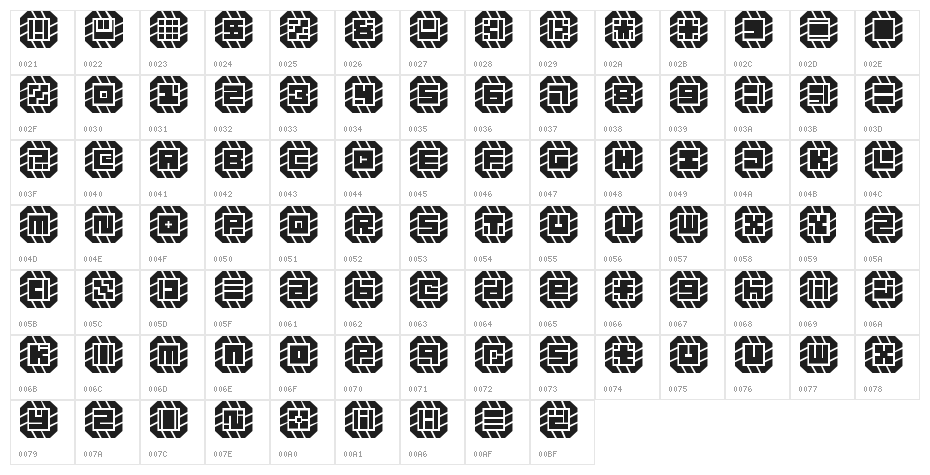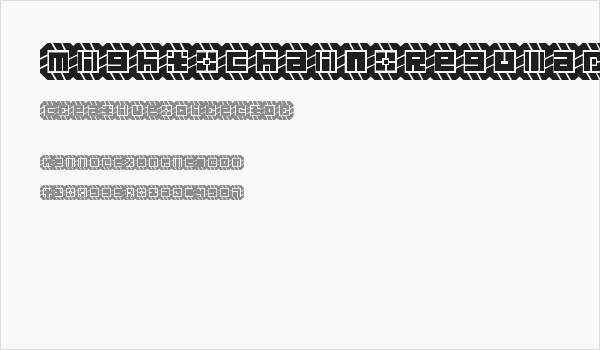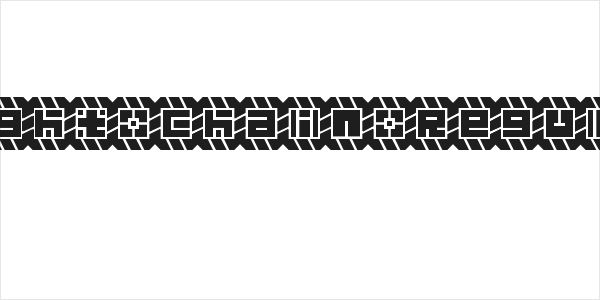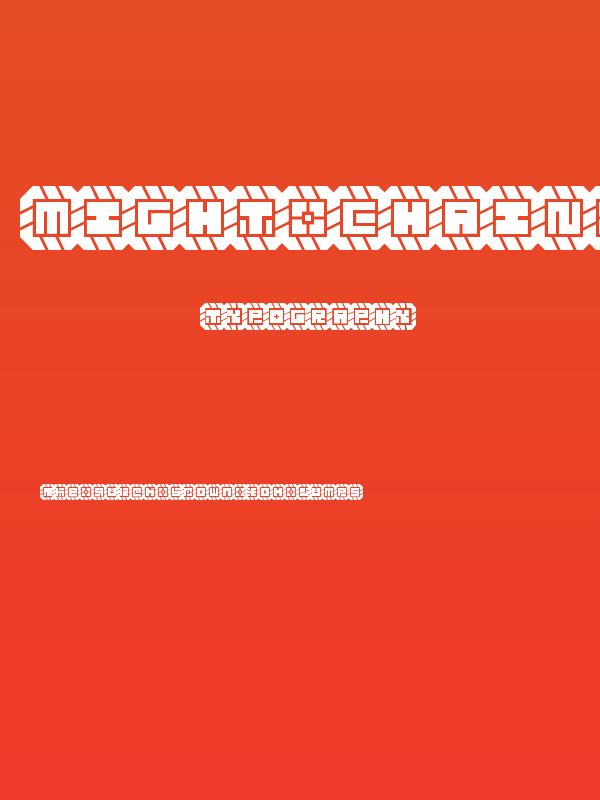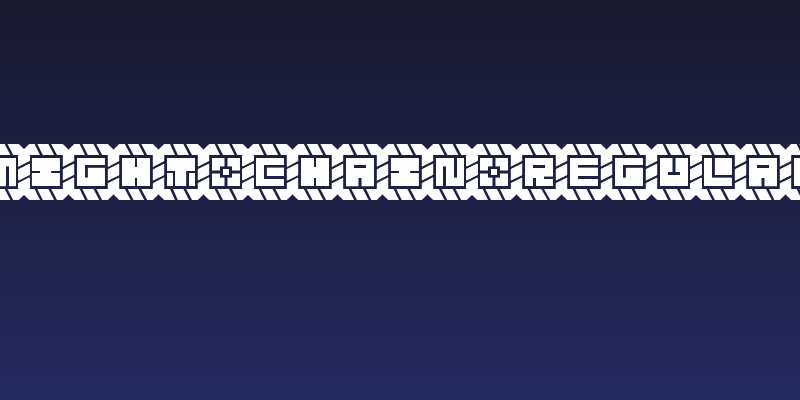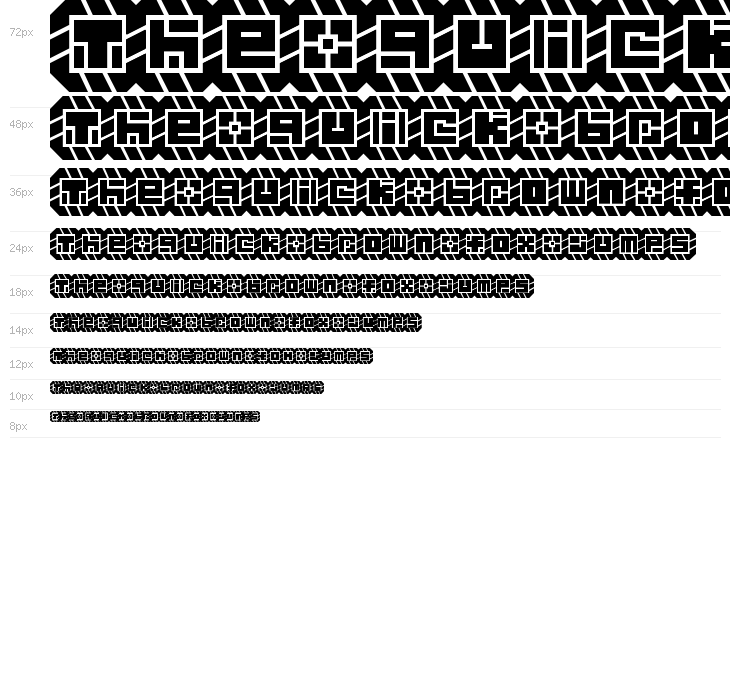
Might Chain Regular Font
Zephram
| Stile generale | Modern, Industrial |
| Progetti proposti | Ideal for branding, posters, video game titles, and any project needing a strong, industrial look. |